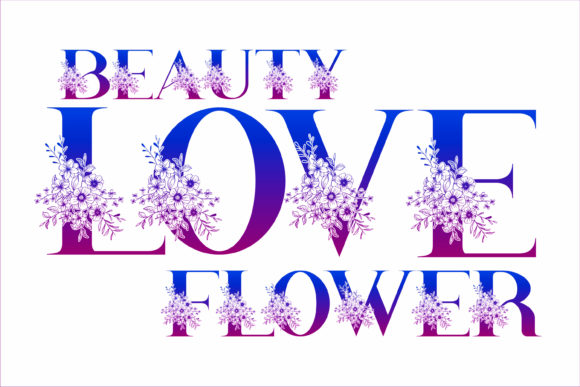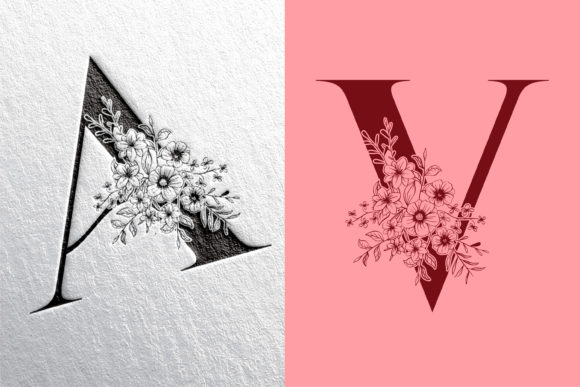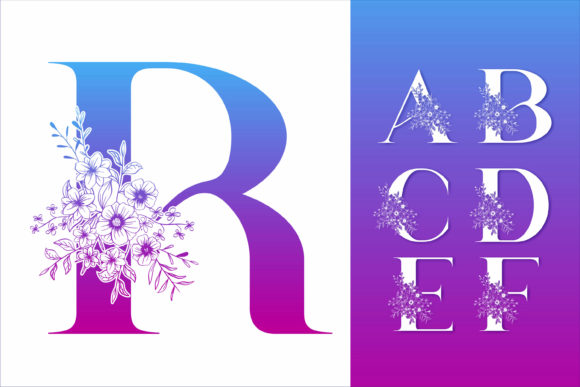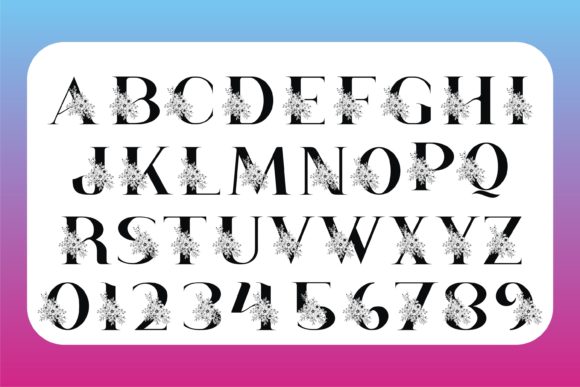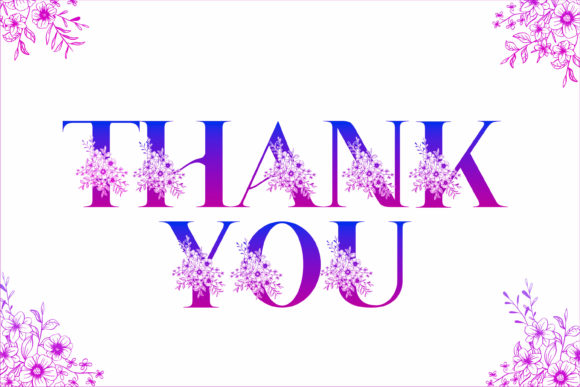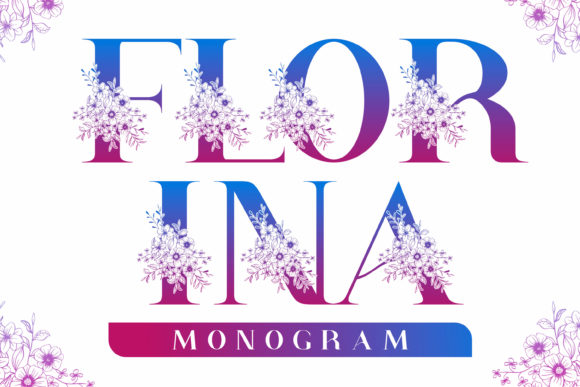
Introducing Florina Monogram Font: Elevate Your Designs with Elegance
Are you a designer or crafter looking for a font that adds a touch of sophistication and style to your projects? Look no further than the Florina Monogram Font. This beautiful decorative font is adorned with floral ornaments and plants, making it a stunning addition to any design that requires a customized touch.
What Makes Florina Monogram Font Special?
Florina Monogram Font is more than just a font – it’s an experience. Its unique blend of elegance and playfulness makes it perfect for a wide range of design projects, from wedding invitations and thank you cards to quotes, greeting cards, logos, and business cards. The font’s floral ornaments and plants add a touch of whimsy and romance, making it ideal for designers and crafters who want to create something truly special.
Wedding designers and event planners, rejoice! Florina Monogram Font is a dream come true for creating stunning wedding invitations, save-the-date cards, and other event materials. The font’s elegant and sophisticated design ensures that your clients’ special day will be remembered for years to come. Plus, its versatility allows you to use it for a variety of design elements, from monograms and logos to titles and descriptions.
Florina Monogram Font is not just limited to wedding and event designs. Its unique style and charm make it perfect for a wide range of design projects, including:
- Wedding invitations and save-the-date cards
- Quotes and typography art
- Business cards and stationery
- DIY crafts and scrapbooking
Why Choose Florina Monogram Font?
So, why choose Florina Monogram Font over other decorative fonts? Here are just a few reasons:
- Unique and eye-catching design: Florina Monogram Font stands out from the crowd with its beautiful floral ornaments and plants.
- Versatile and adaptable: Use it for a wide range of design projects, from wedding invitations to logos and business cards.
- Elegant and sophisticated: Add a touch of luxury and refinement to your designs with this stunning font.
Tips for Using Florina Monogram Font
To get the most out of Florina Monogram Font, here are a few tips:
- Experiment with different sizes and colors: Play around with different font sizes and colors to create a unique look that suits your design.
- Pair it with complementary fonts: Combine Florina Monogram Font with other fonts to create a beautiful and harmonious design.
- Use it sparingly: Don’t be afraid to use Florina Monogram Font sparingly to add a touch of elegance and sophistication to your design.
Florina Monogram Font is a beautiful and versatile decorative font that adds a touch of elegance and sophistication to any design. With its unique floral ornaments and plants, it’s perfect for designers and crafters who want to create stunning wedding invitations, event materials, logos, business cards, and more. So why wait? Download Florina Monogram Font today and start elevating your designs to the next level!